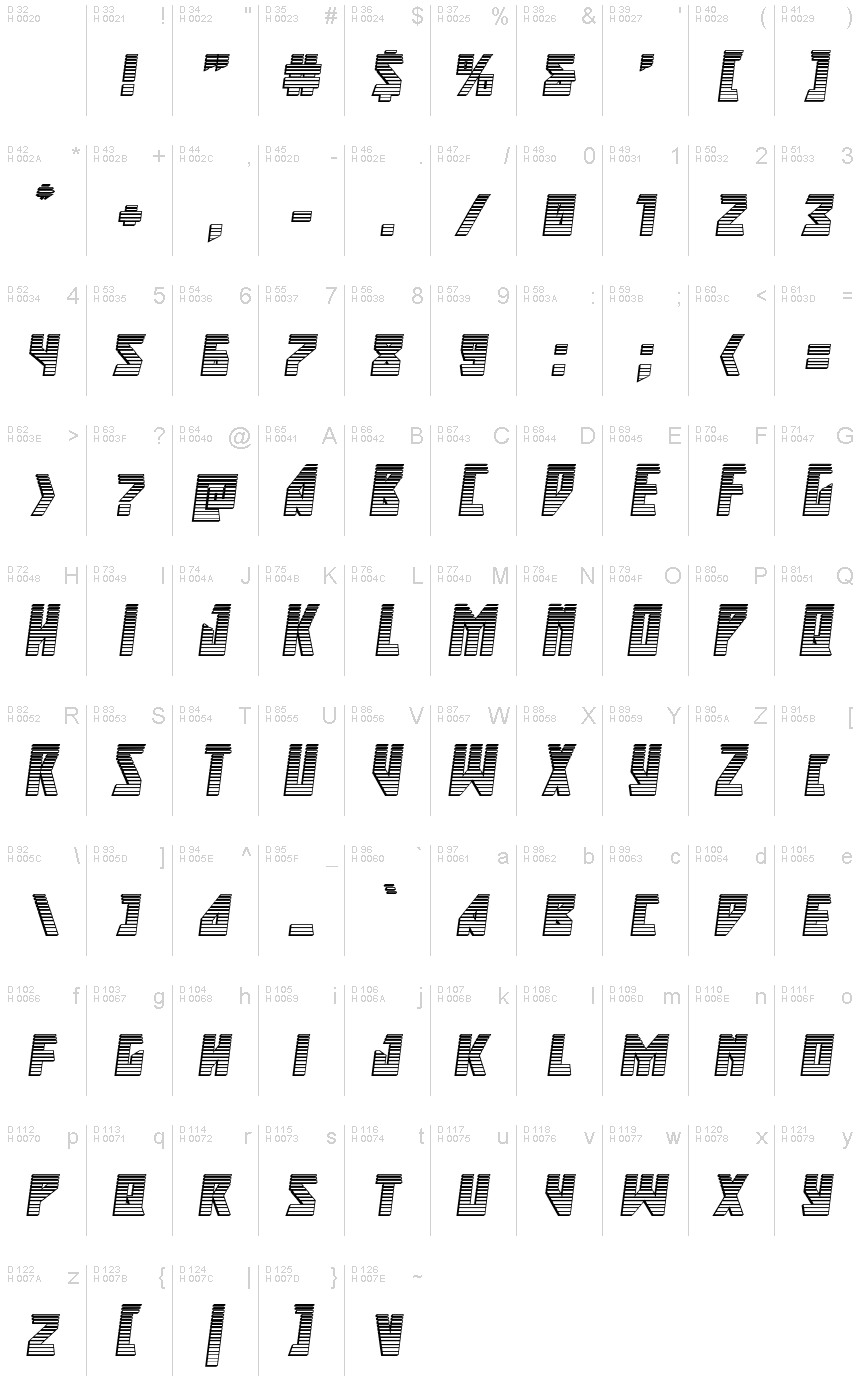
Major Force Chrome Italic
Major Force Chrome Italic is a bold, futuristic display font that exudes a striking visual impact. Designed by Daniel Zadorozny of Iconian Fonts, this condensed font family boasts a distinct, chrome-like aesthetic with its sleek, angular letterforms. The italic style adds a dynamic, kinetic energy, making it an ideal choice for headlines, branding, and attention-grabbing design elements. Its bold, condensed nature lends itself well to a variety of applications, from digital interfaces to print media, where it can command attention and convey a sense of modern, technological sophistication.
This font's unique characteristics and versatility make it a compelling option for designers seeking to create impactful, future-forward visuals. Its versatility allows it to seamlessly integrate into diverse design contexts, from high-tech product branding to cinematic title sequences.